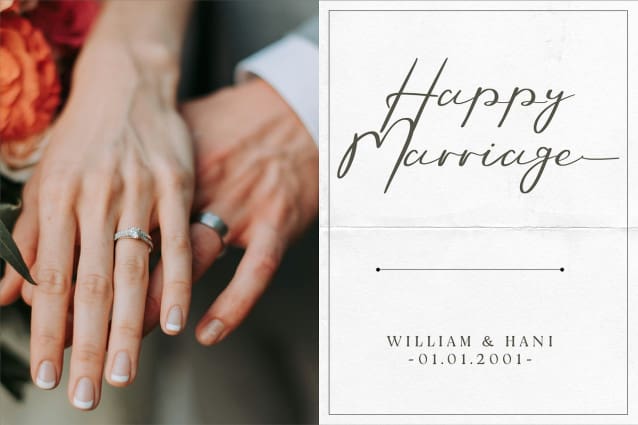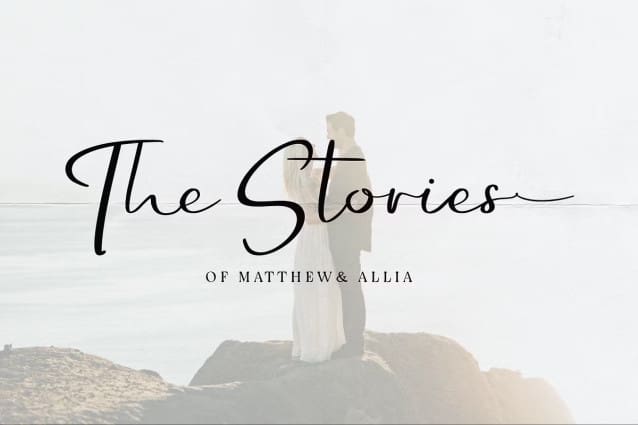
Cellestia Signa Font
Cellestia Signa Font is a stunning handwritten font that radiates elegance and natural beauty. Its fluid, graceful strokes mimic authentic handwriting, bringing a whimsical charm to every letter. Designed with smooth curves and well-balanced proportions, this font exudes sophistication while maintaining a natural and approachable feel.
Perfect for branding, wedding invitations, logos, and other creative projects, Cellestia Signa blends timeless elegance with modern style, making it a versatile choice for elevating your designs. Let its gentle flow and effortless character add a touch of refinement to your typography.